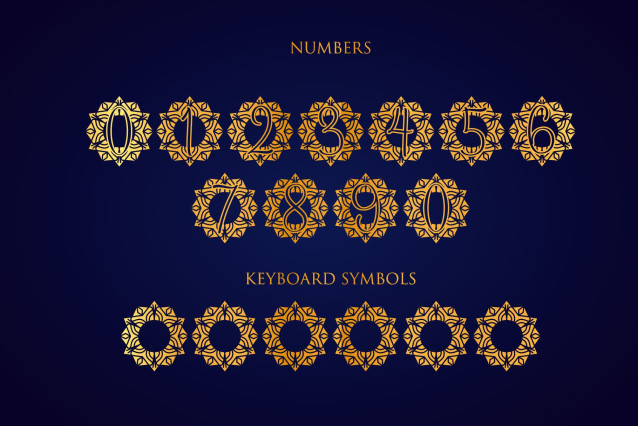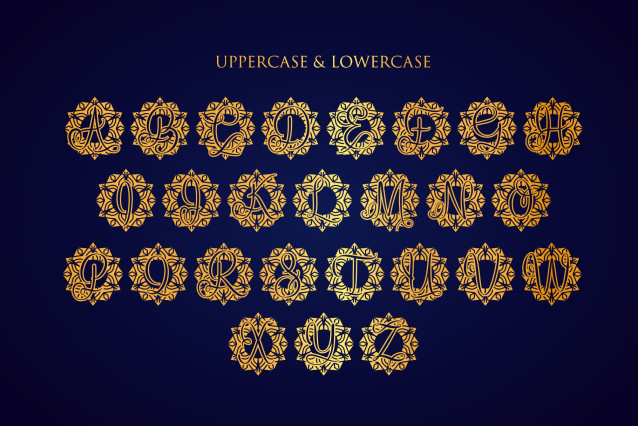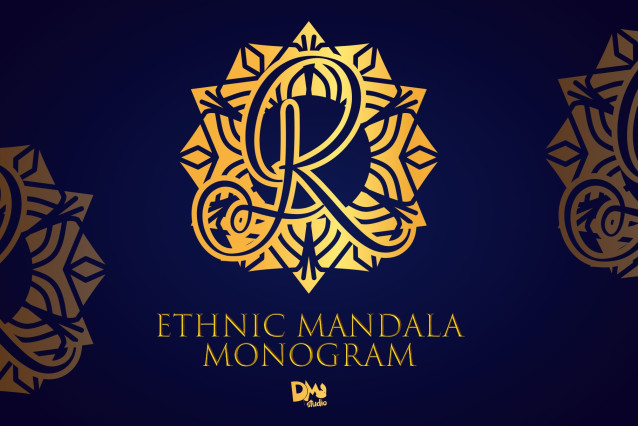
Ethnic Mandala Monogram Font
Ethnic Mandala Monogram is a stunning monogram font that blends traditional ethnic patterns with intricate mandala artistry. Drawing inspiration from diverse global cultures and ornamental craftsmanship, this font is perfect for cultural branding, artisanal product packaging, festive invitations, boho wedding designs, and heritage-themed projects. Its rich, detailed style adds a sense of tradition and beauty to any creative work.